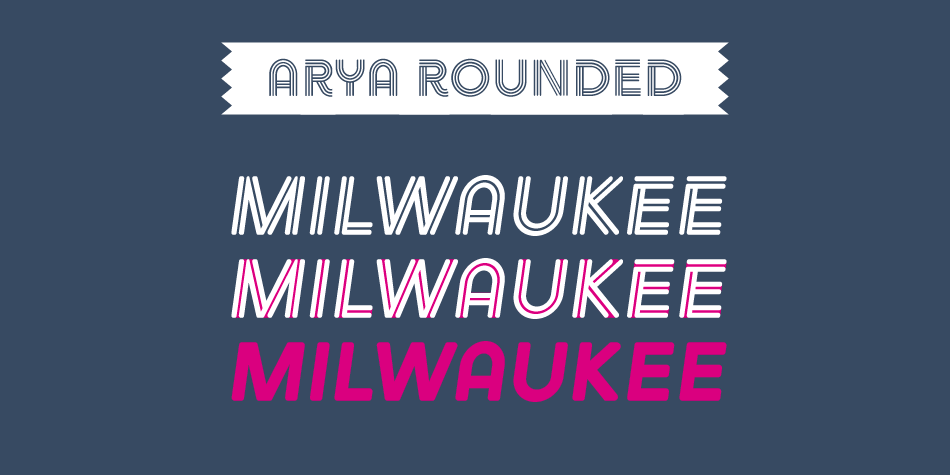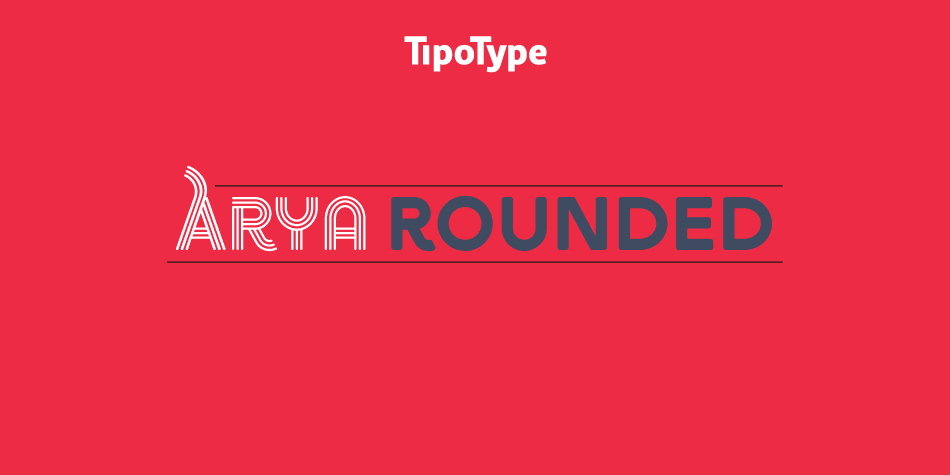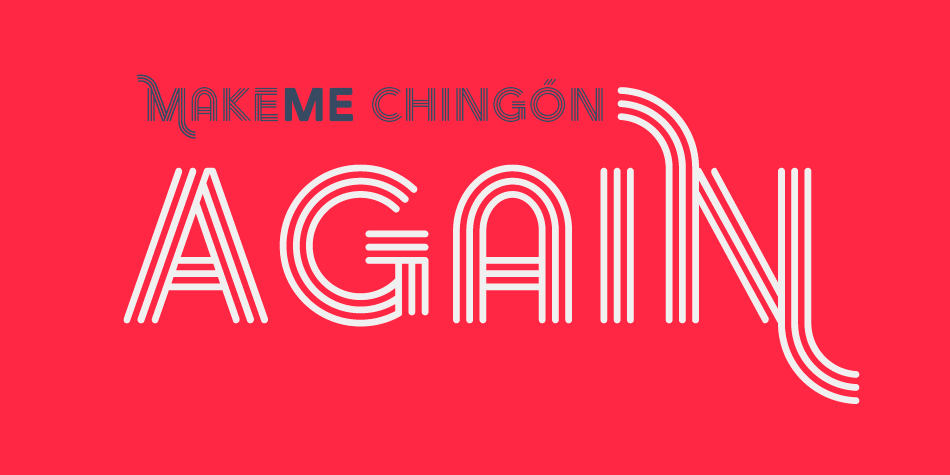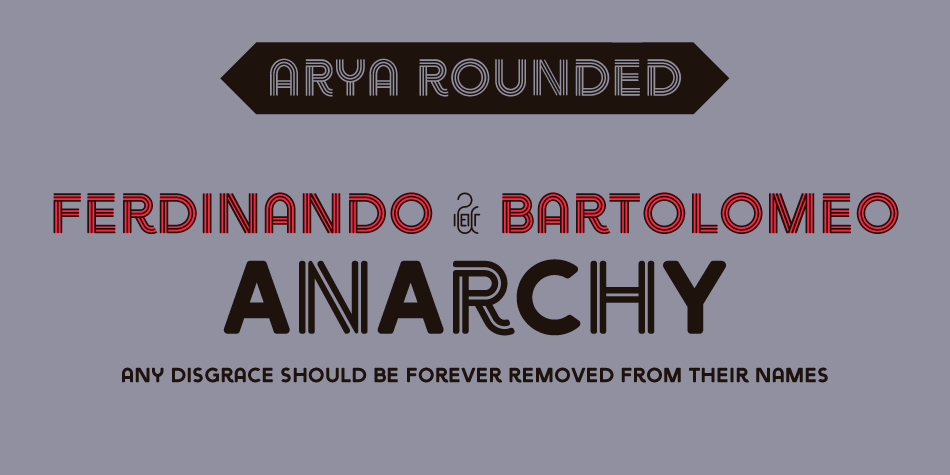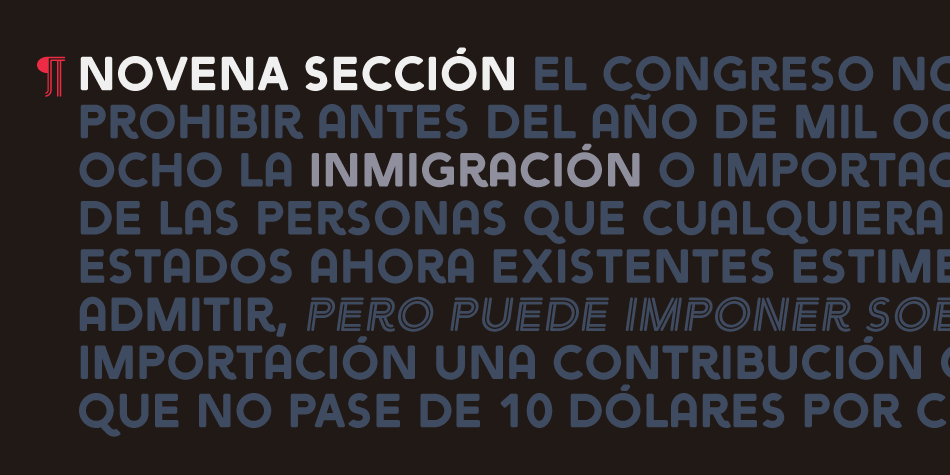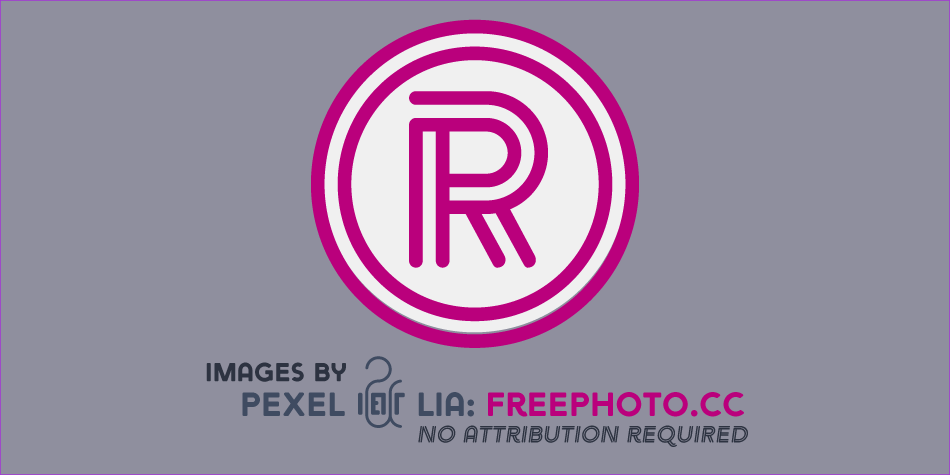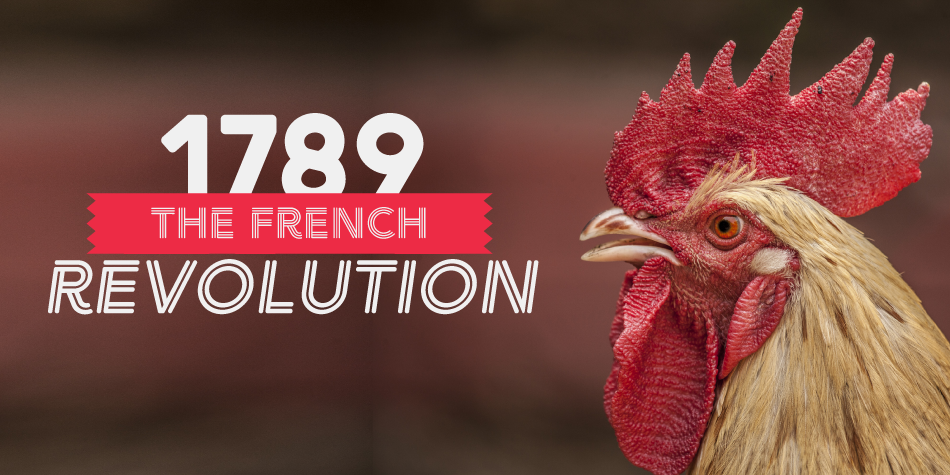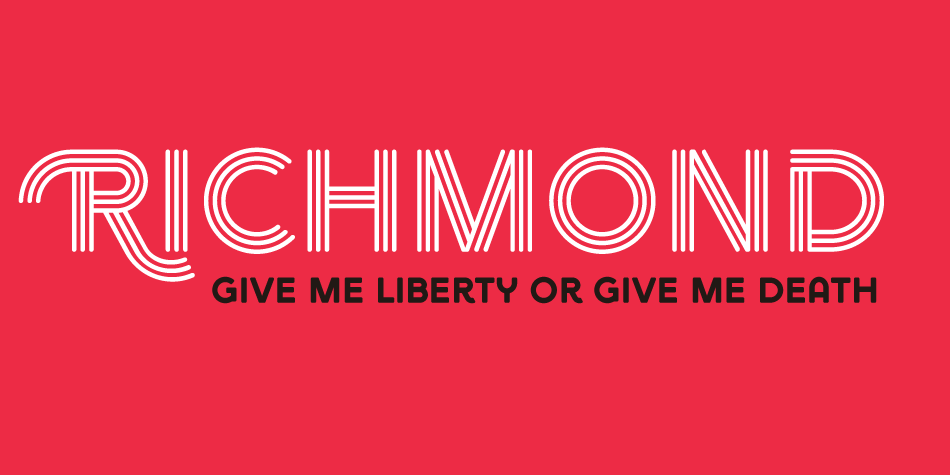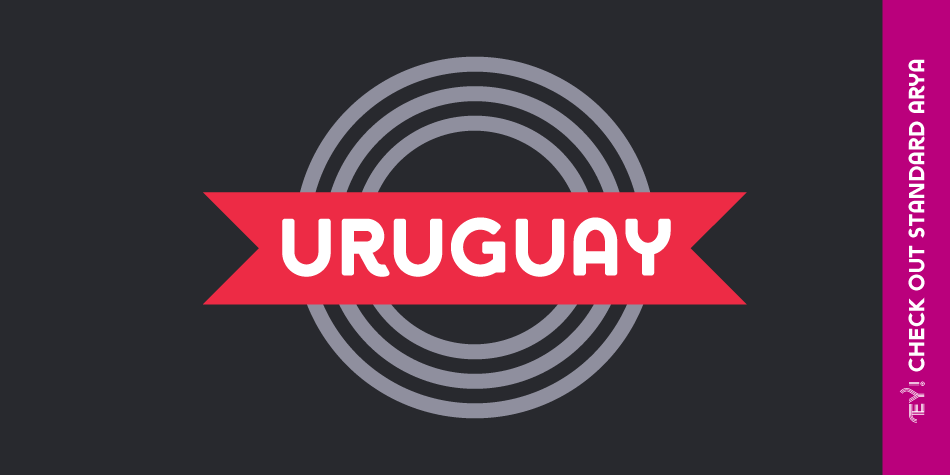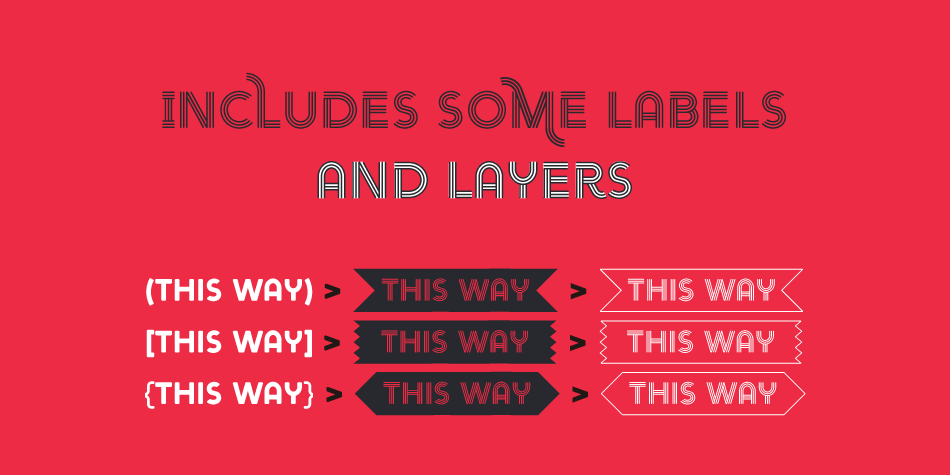
Designed by Vicente Lamónaca, Arya Rounded is a display sans font family. This typeface has nine styles and was published by TipoType.
Arya Rounded is a display typeface, based on Roman proportions. It has three versions, differentiated by the amount of the drawn lines. Single is solid. Double is sturdy but light. Triple is versatile and includes alternatives. They can be combined in layers. Capsule versions (White and Black) are designed to do quick, simple and elegant labels. Arya Rounded is designed as an upgrade Arya.